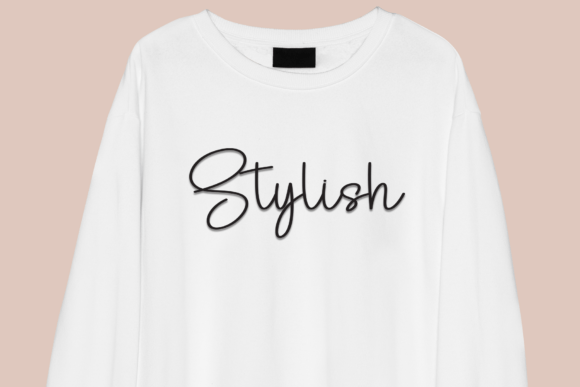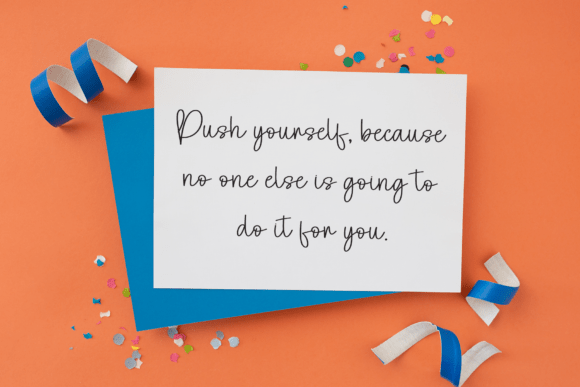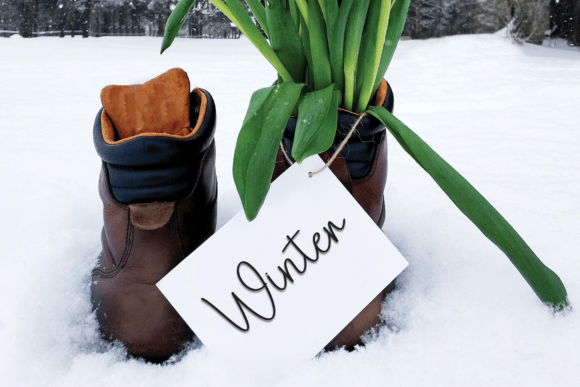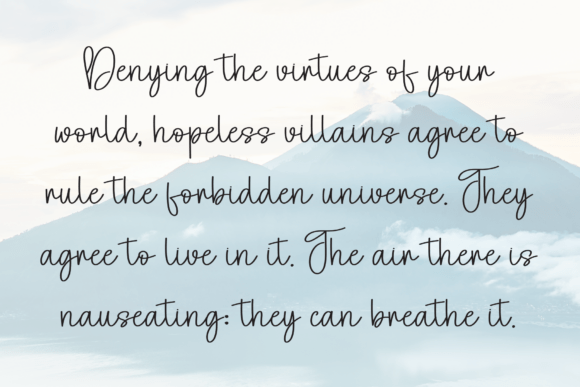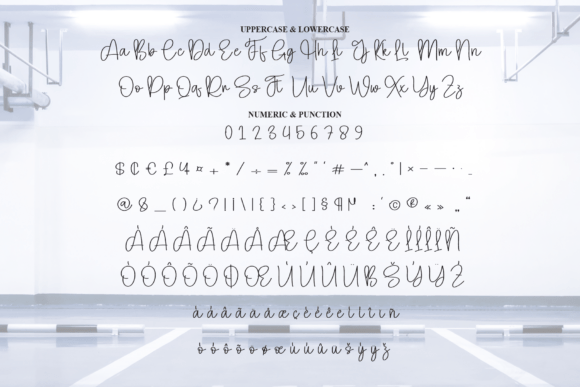
Introducing Garage Font: Elevate Your Designs with Elegance and Sophistication
In the world of typography, a font can make all the difference in the aesthetic and effectiveness of a design. For those seeking a stylish and contemporary script font that exudes elegance, Garage Font is an exceptional choice. This beautifully crafted font combines the charm of hand-drawn calligraphy with modern elements, making it perfect for a wide range of design projects.
The Essence of Garage Font
Garage Font is characterized by its graceful strokes, fluid curves, and meticulously designed letterforms. Each character is crafted with precision to ensure a natural flow and polished appearance, making it stand out in any design. The font’s contemporary charm is balanced with a refined sophistication, allowing it to bring an elevated level of style to various applications.
One of the key advantages of Garage Font is its versatility. Whether you’re working on a logo, invitation, packaging, or social media graphics, this font seamlessly adapts to different design needs. Its elegant and modern appearance makes it suitable for:
- Logos: Create memorable and stylish brand identities that stand out.
- Invitations: Add a touch of sophistication and elegance to your event invitations.
- Packaging: Elevate your product packaging with a refined and contemporary look.
- Social Media Graphics: Enhance your social media presence with visually appealing graphics.
Why Choose Garage Font?
With numerous fonts available, Garage Font stands out for several reasons:
- Elegant and Modern: Offers a perfect blend of elegance and contemporary charm.
- Highly Versatile: Suitable for a wide range of design projects.
- Attention to Detail: Carefully crafted letterforms ensure a polished and refined appearance.
- Easy to Read: Despite its elegant nature, the font maintains readability across different sizes and applications.
Tips for Using Garage Font Effectively
To maximize the impact of Garage Font in your designs, consider the following tips:
- Pair with Complementary Fonts: Combine Garage Font with clean sans-serif or serif fonts to create visual contrast and hierarchy.
- Experiment with Sizes: Play with different font sizes to emphasize certain elements and create a dynamic layout.
- Utilize White Space: Allow sufficient white space around your text to enhance readability and focus attention.
- Customize and Experiment: Don’t be afraid to experiment with colors, textures, and effects to make the font truly unique.
Garage Font is a stylish script font that brings a touch of elegance and contemporary charm to any design. Its graceful strokes, fluid curves, and carefully crafted letterforms make it an ideal choice for designers and crafters looking to elevate their projects. With its versatility, readability, and visual appeal, Garage Font is set to become a staple in your typography collection.
Whether you’re a professional designer or a DIY enthusiast, Garage Font offers the perfect blend of style and functionality. So, why settle for ordinary when you can create something extraordinary? Explore the possibilities with Garage Font and take your designs to the next level.